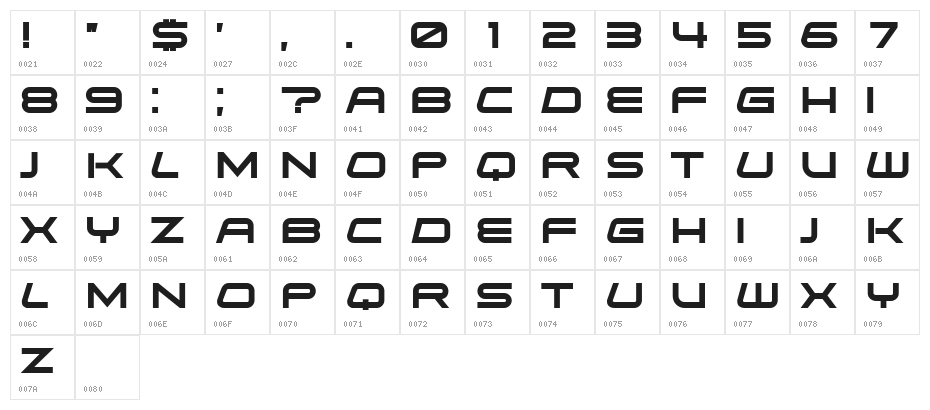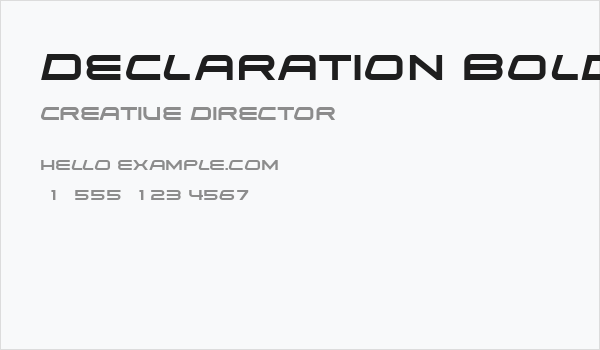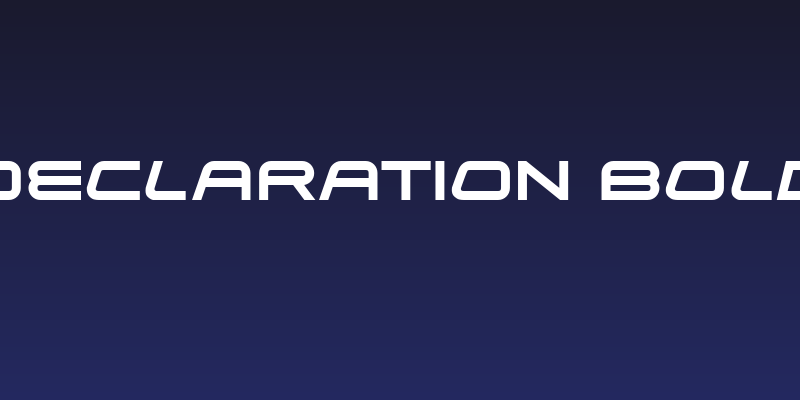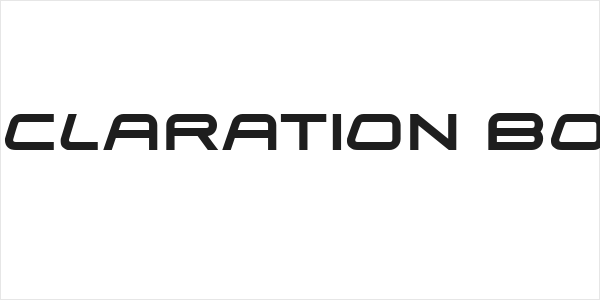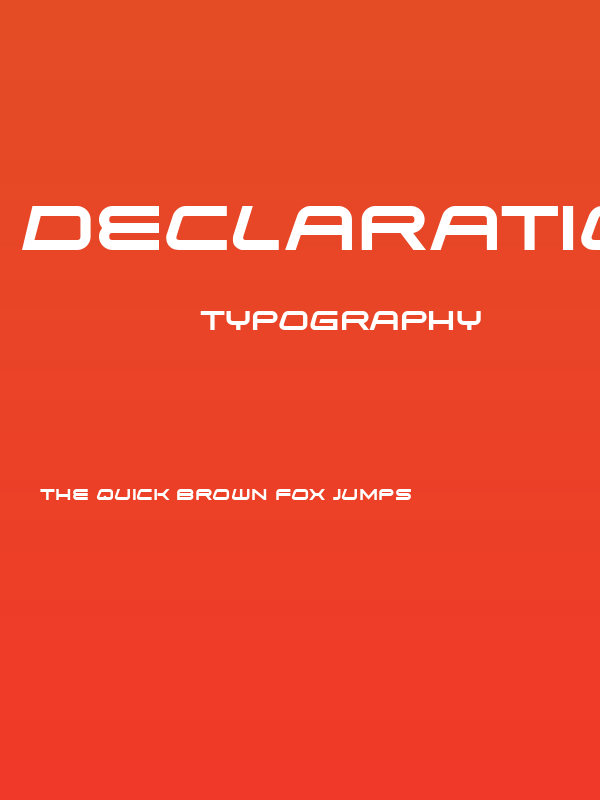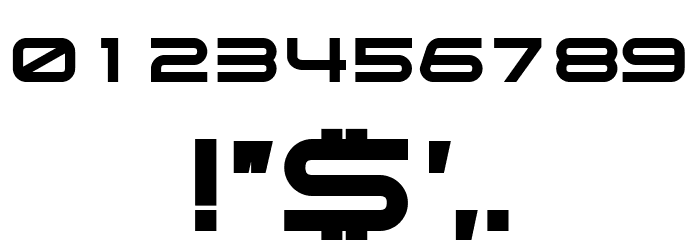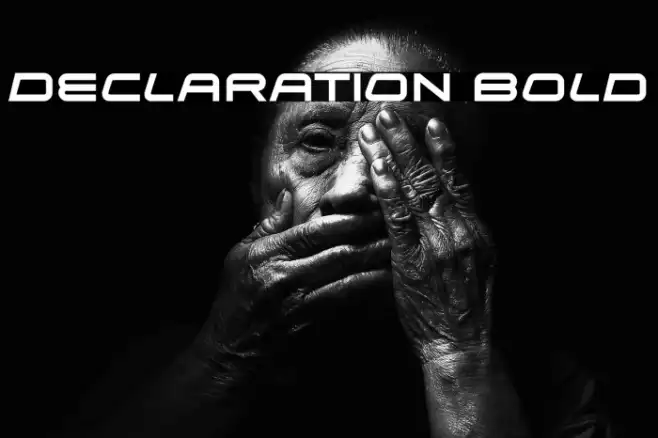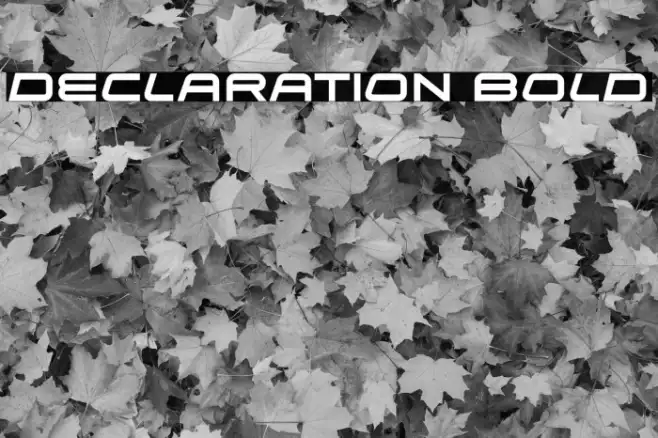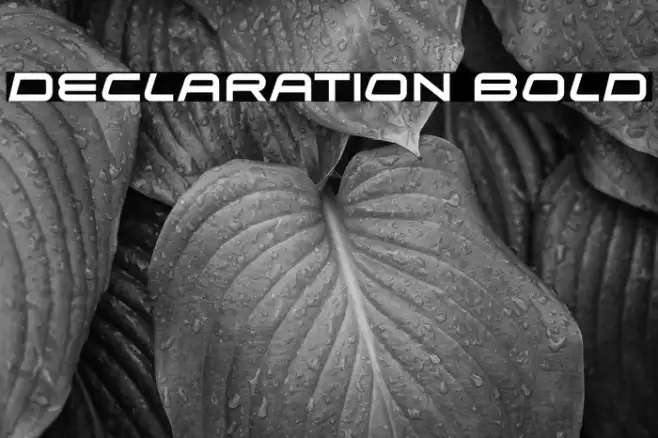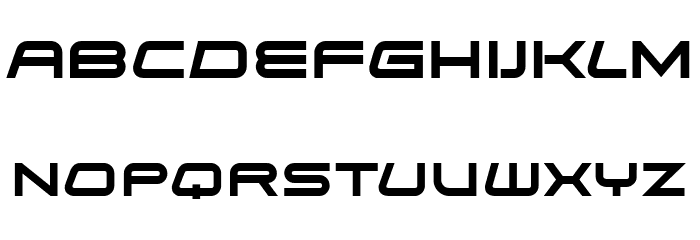
Declaration Bold Font
Declaration Bold Description
This font features a bold, geometric design with a modern and futuristic appeal. The characters are constructed with clean, straight lines and sharp angles, giving it a structured and robust appearance. The uppercase letters are uniform in height, while the lowercase letters maintain a consistent style, enhancing readability. The numerals and special characters follow the same design principles, ensuring a cohesive look across all elements. The font's boldness and clarity make it suitable for impactful and attention-grabbing designs.
| Proposed Projects | Ideal for technology branding, futuristic posters, video game interfaces, and modern advertising campaigns. |